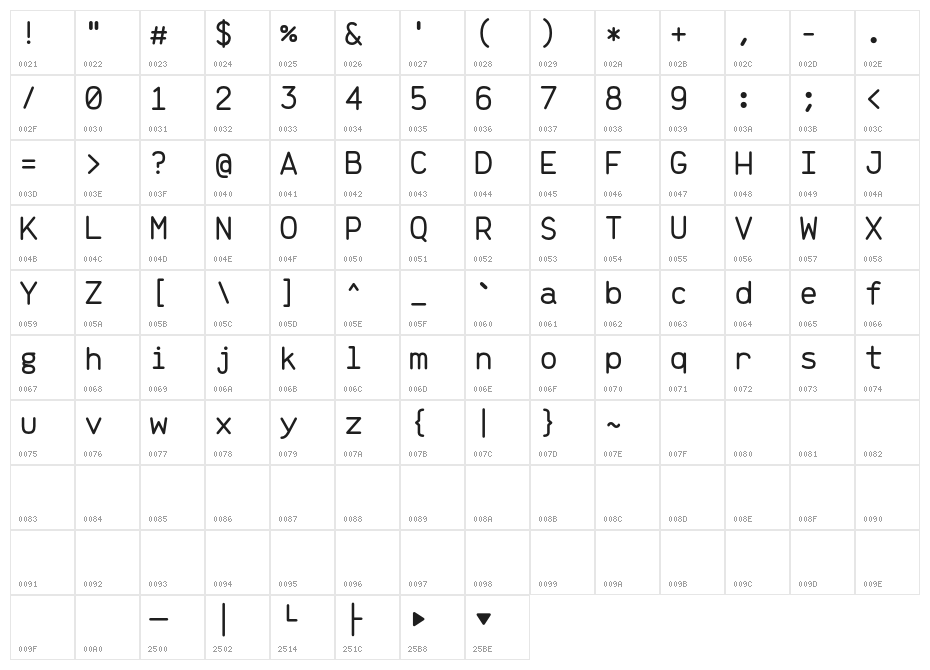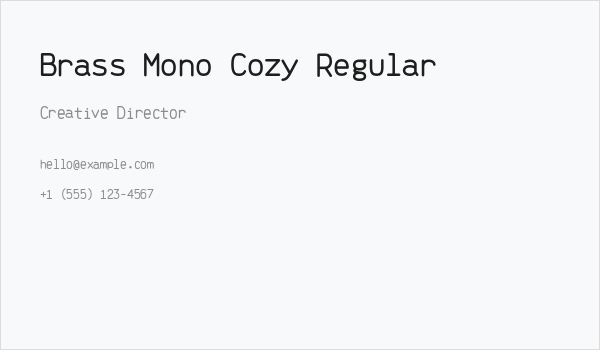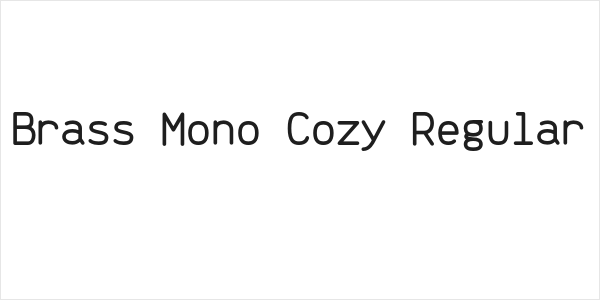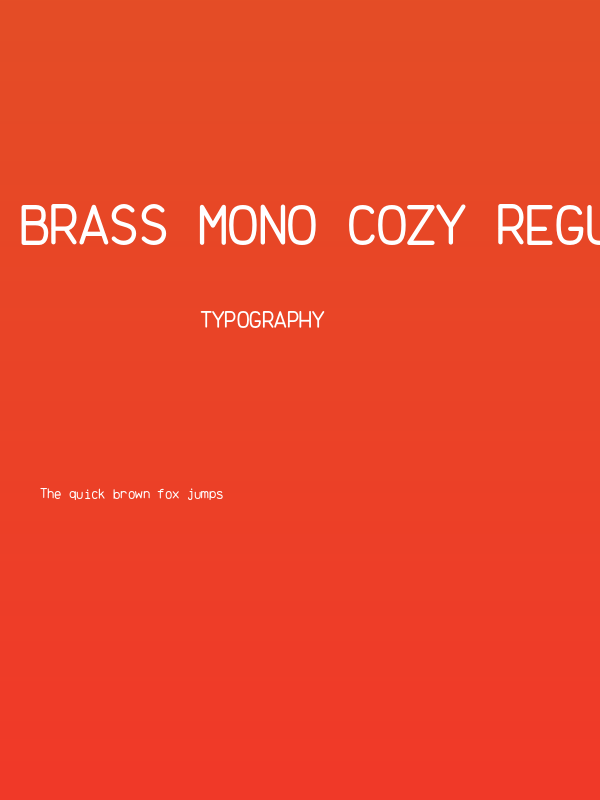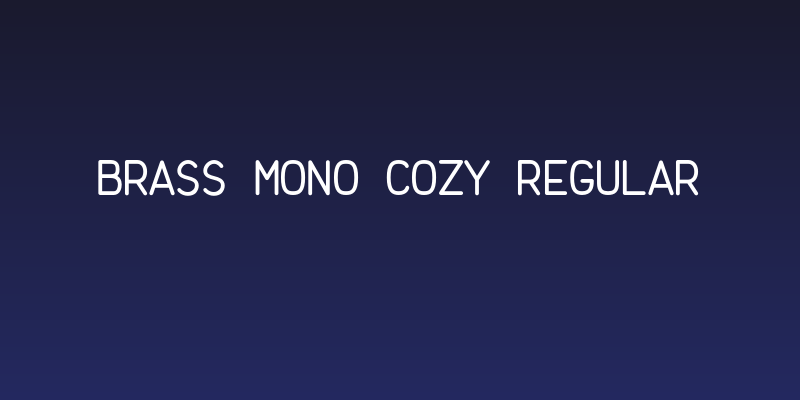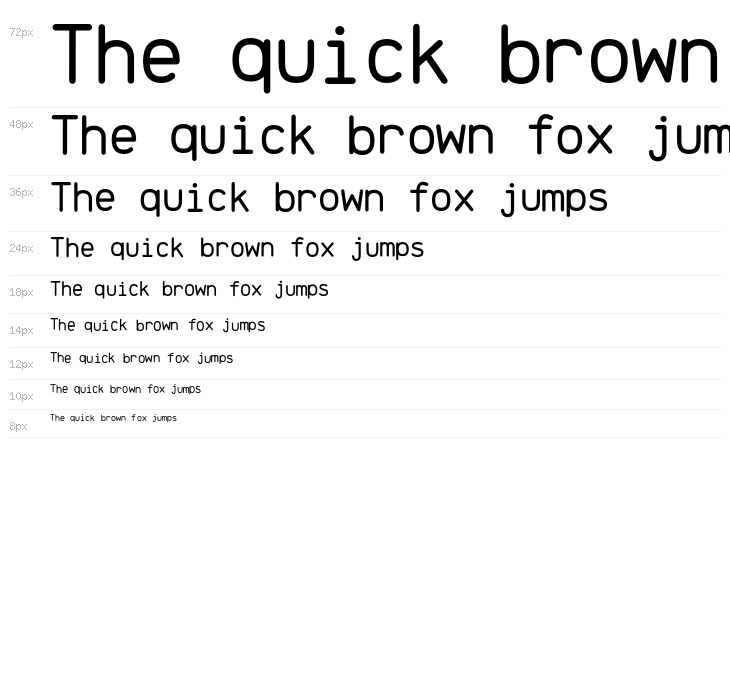
Brass Mono Cozy Regular Font
Brass Mono Cozy Regular Description
This font features a clean and minimalist design, characterized by its monospaced structure where each character occupies the same amount of horizontal space. The numerals are clear and distinct, making it ideal for coding and data representation. Its rounded edges and uniform stroke width contribute to a cozy and approachable appearance, while maintaining a professional and modern aesthetic. The font's simplicity and clarity ensure excellent readability across various digital platforms.
Use CaseCoding, Technical documentation, Data tables
Proposed ProjectsSuitable for coding environments, technical documentation, data tables, and minimalist design projects.